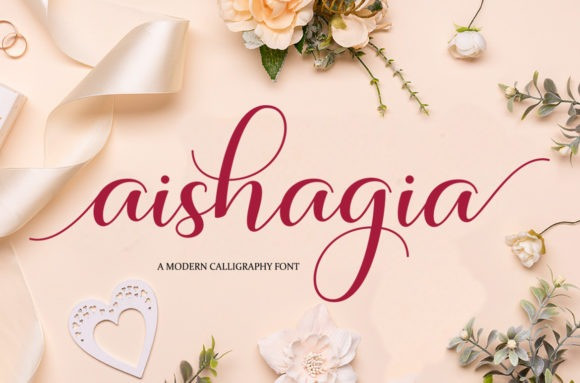
Aishagia Calligraphy Font is a beautiful and refined script font. It has a classy, elegant and modern look that can be used for logos, branding, invitations, stationery, wedding designs, social media posts, and much more! This font is PUA encoded which means you can access all of the glyphs and swashes with ease!